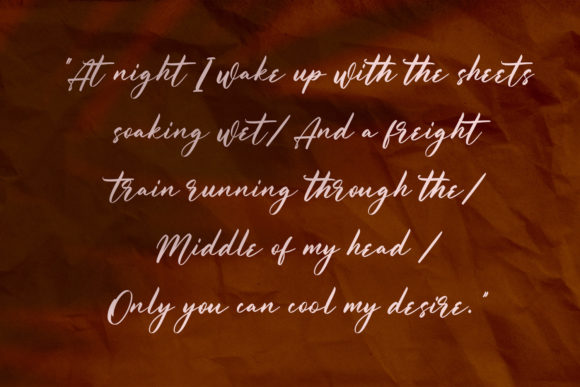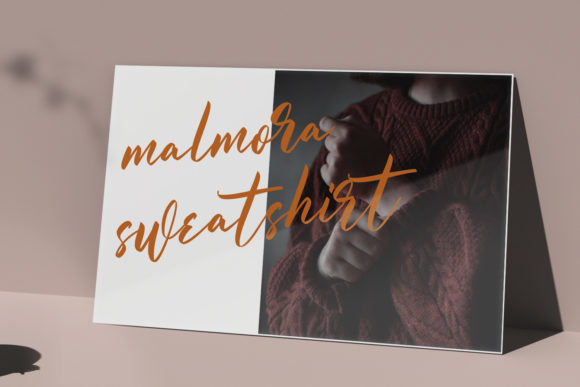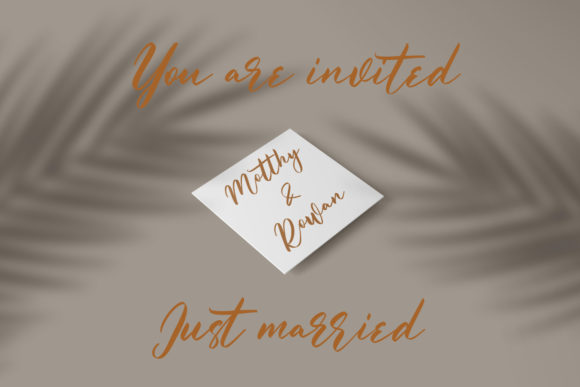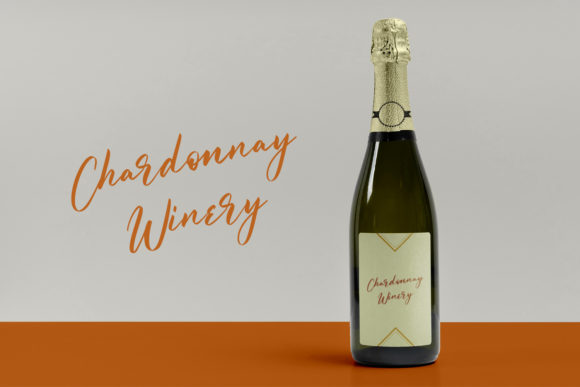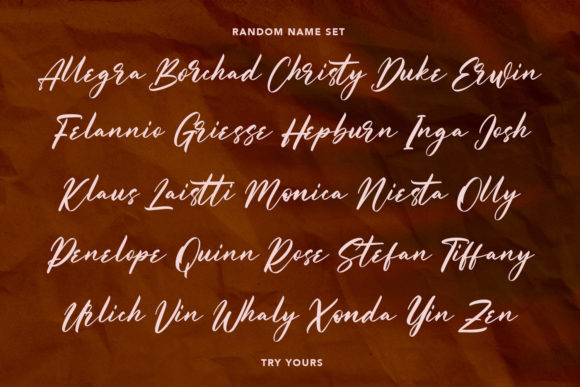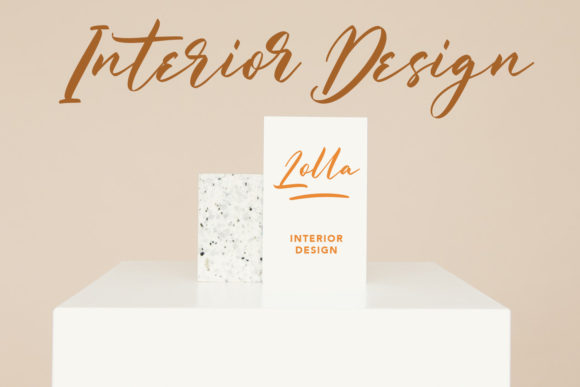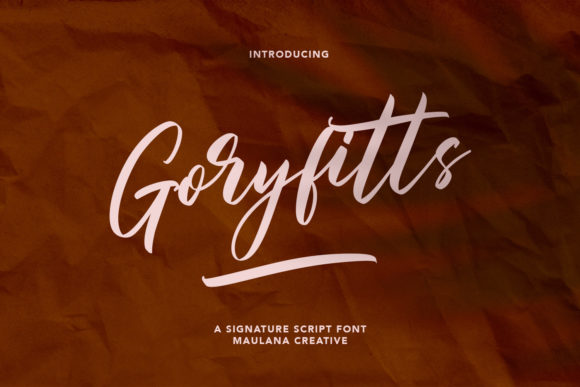
Goryfitts Font: Elevate Your Designs with Elegant Script Typography
In the world of typography, a well-crafted font can make all the difference in elevating your design projects from ordinary to extraordinary. For designers and crafters seeking a touch of sophistication and classic elegance, Goryfitts Font is an exceptional choice. This beautiful script font, inspired by timeless classic calligraphy, brings a contemporary atmosphere and impeccable form to your creations.
The Essence of Goryfitts Font
Goryfitts is not just another script font; it’s a meticulously designed typeface that strikes the perfect balance between modernity and tradition. Its elegant strokes and varied letterforms are crafted to add a touch of luxury and refinement to any project. Whether you’re working on a branding campaign, a wedding invitation, or a packaging design, Goryfitts Font offers the versatility and sophistication you need.
Key Features of Goryfitts Font
- Balanced and Varied: Goryfitts boasts a balanced design, where no stroke is too thin or too thick. This balance ensures that your text remains legible and visually appealing across various mediums.
- Elegant and Contemporary: With its roots in classic calligraphy, Goryfitts brings an air of timeless elegance to your designs. Yet, its contemporary twist ensures it feels fresh and relevant.
- Impeccable Form: Each letterform in Goryfitts is designed with precision and care, ensuring that your text communicates not just information, but also style and sophistication.
- Versatility: From digital platforms to print materials, Goryfitts Font adapts seamlessly, making it an excellent addition to your typography arsenal.
Why Choose Goryfitts Font?
For designers and crafters, the right font can be a game-changer. Here are a few reasons why Goryfitts stands out:
- Enhances Readability: Despite its elegant and sometimes intricate strokes, Goryfitts maintains high readability, ensuring your message is communicated effectively.
- Unique yet Legible: In a sea of generic fonts, Goryfitts offers a unique aesthetic without compromising on legibility.
- Time-Saving: With Goryfitts, you don’t have to spend hours designing custom lettering for your projects. This font provides professional-quality typography right out of the box.
- Cross-Platform Compatibility: Whether your project is digital or in print, Goryfitts performs beautifully across different platforms and mediums.
Using Goryfitts in Your Projects
Incorporating Goryfitts Font into your designs is straightforward. Here are a few tips to get you started:
- Pair it Wisely: Combine Goryfitts with complementary fonts to create visual interest. A sans-serif font can offer a nice contrast to Goryfitts’ elegant script.
- Experiment with Sizes: Don’t be afraid to play with different sizes to emphasize certain parts of your text or to create a hierarchy of information.
- Consider Color: The right color can enhance Goryfitts’ beauty. Experiment with different hues to find the one that best suits your project’s mood and theme.
Goryfitts Font is more than just a typeface; it’s a design statement. With its elegant script, contemporary vibe, and impeccable form, it offers designers and crafters a powerful tool to elevate their projects. Whether you’re aiming for sophistication, elegance, or a touch of classic charm, Goryfitts is an excellent choice. Incorporate Goryfitts into your typography repertoire and discover how it can transform your designs into stunning works of art.